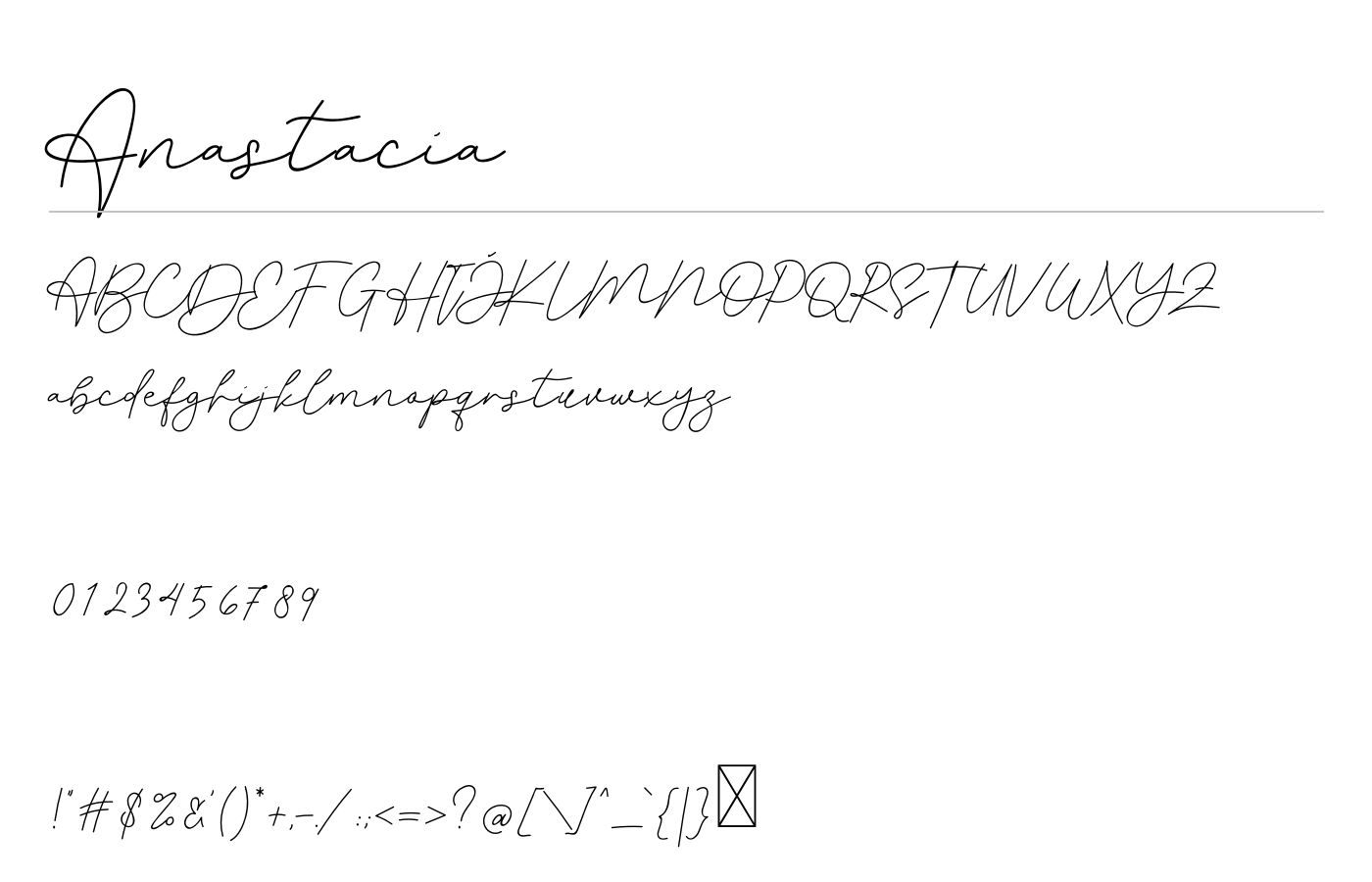
Anastacia is a delicate, elegant script font with a light, airy feel, featuring fine, flowing strokes that mimic natural handwriting. Its tall, slender letterforms with subtle flourishes make it perfect for sophisticated branding, invitations, and editorial headlines that seek a refined and personal touch. This font works well in designs that require a graceful, intimate aesthetic without overpowering the overall look.
Anastacia Font